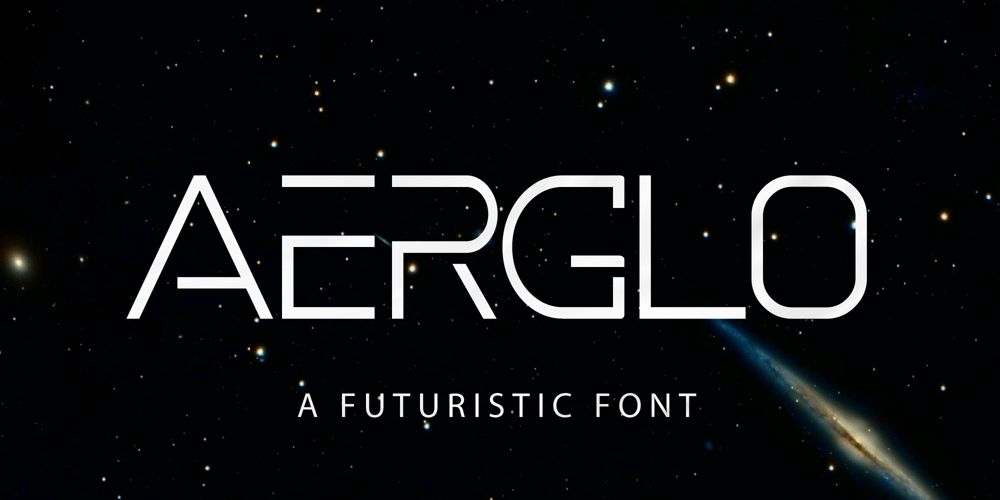
Aerglo Font Family was designed by Adi Nurjaman and published by Yukfont. Aerglo contains 2 styles and family package options. Introducing the new font ‘Aerglo’, a futuristic font perfect for robotics, space, future technology, and innovative products!What you get:Aerglo A Futuristic font includes Regular and Italic Styles.Supports Multilanguage (Western European Latin), complete with numbers and punctuation.And supports various digital software.